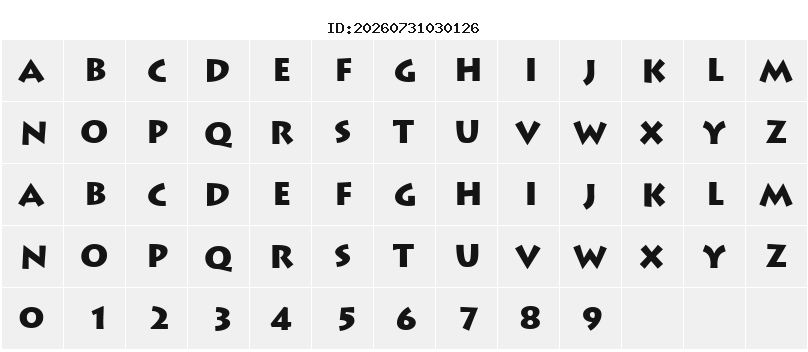
Lithographer Preview
• Font Name: Lithographer
• Font ID: WSI: Lithographer Regular
• Full Font Name: Lithographer
• Version: W.S.I. International Distribution v1.1: 6/6/93
• PostScript Name: Lithographer
• Character Count: 227
About Lithographer.ttf
Lithographer.ttf is a modern, elegant sans-serif font designed for ultimate readability and visual harmony. Perfect for branding, headlines, web design, and print materials.